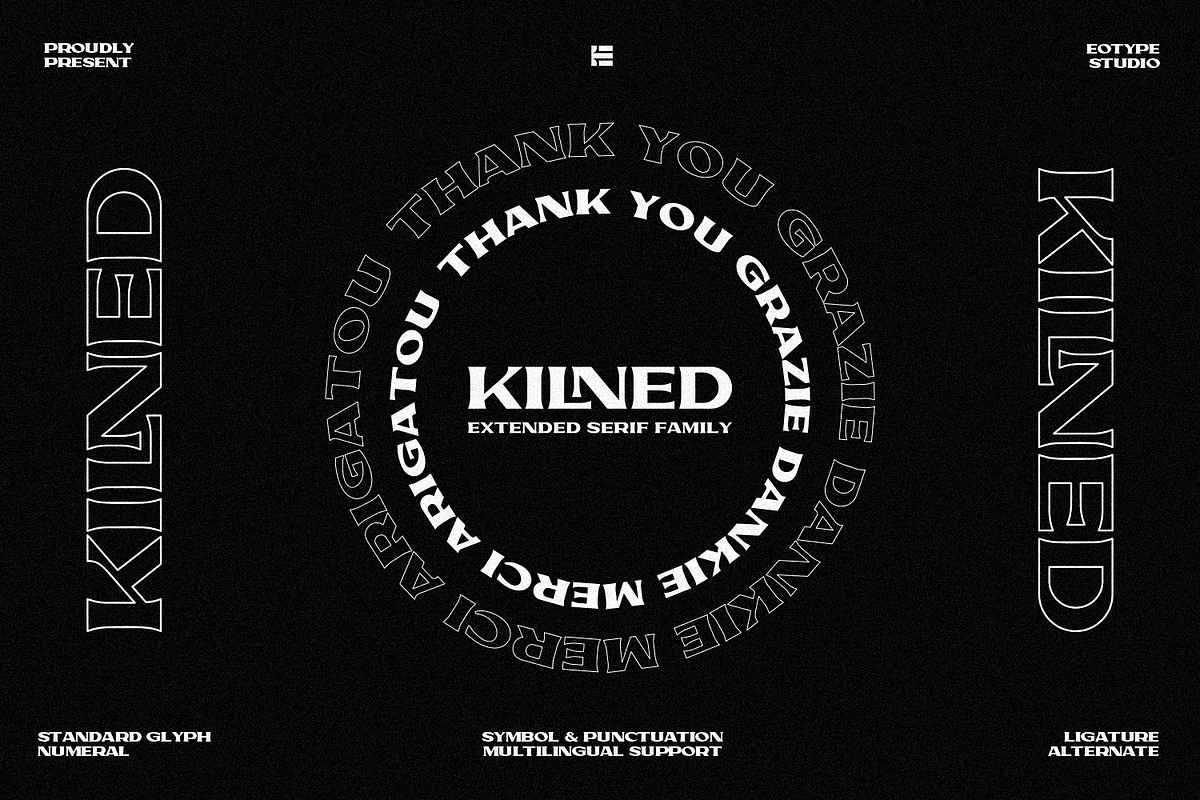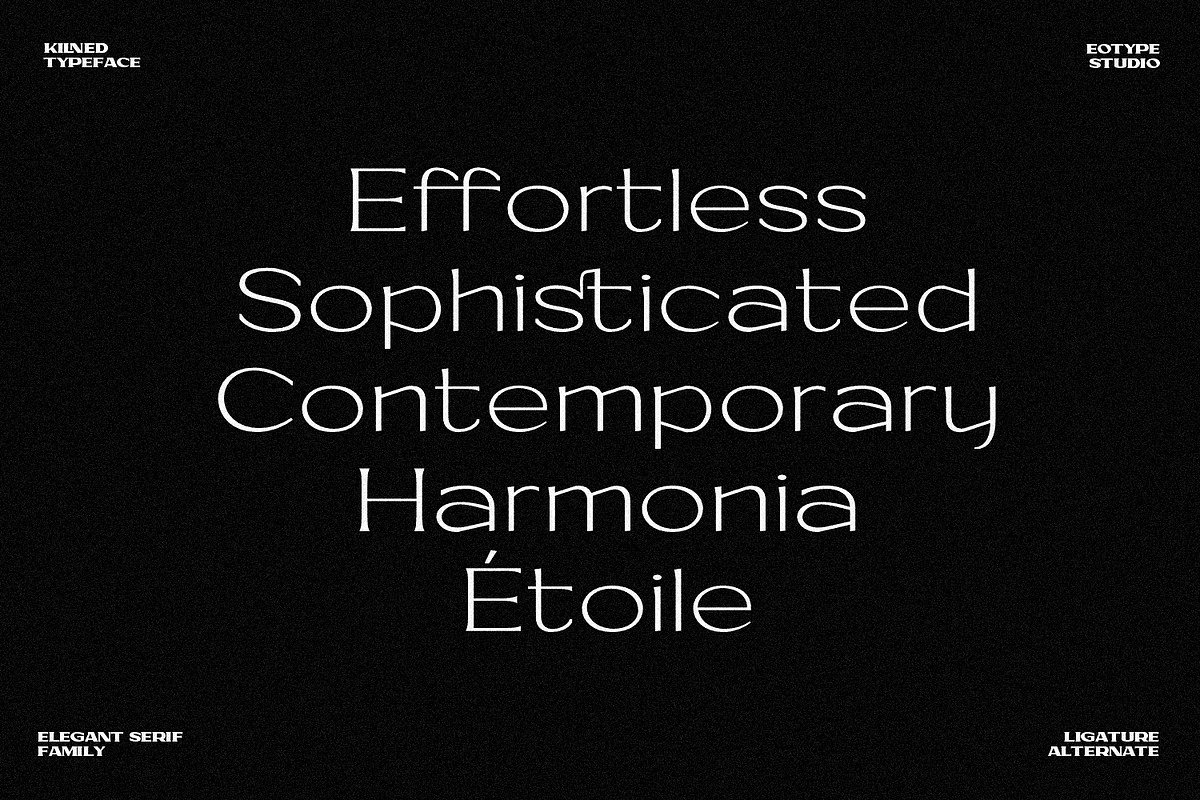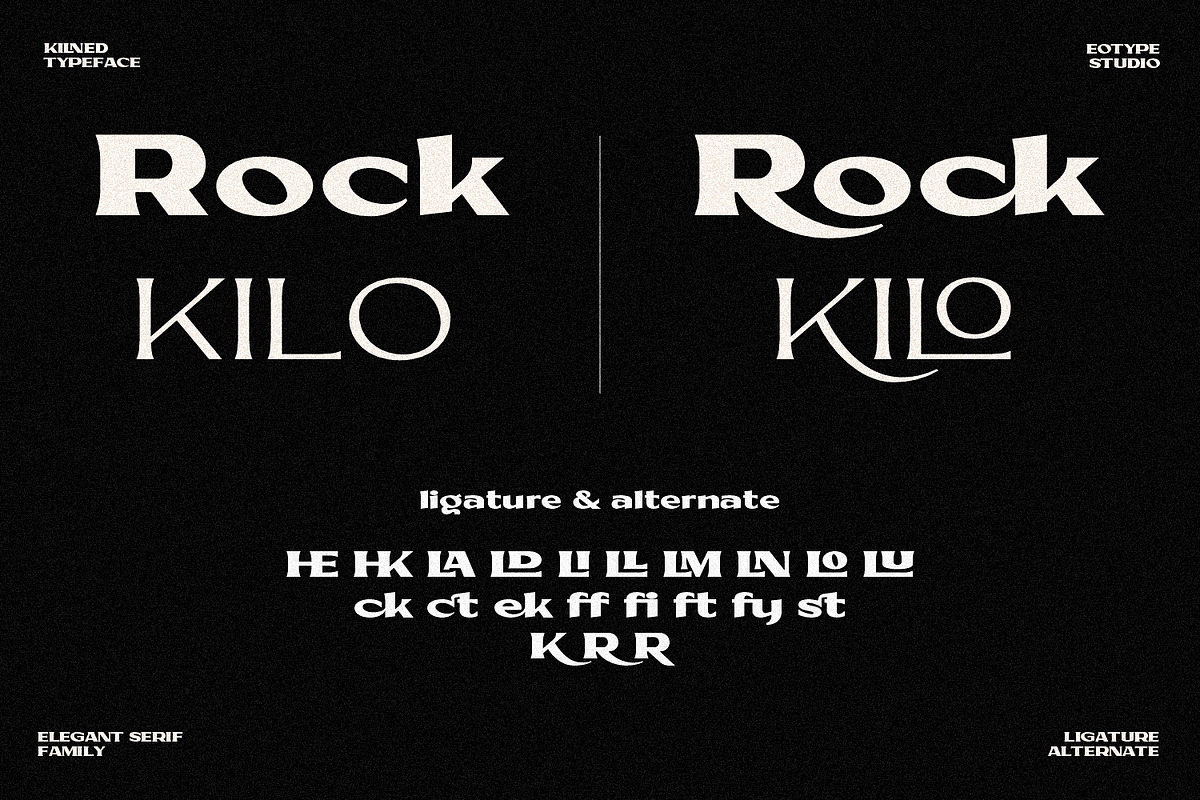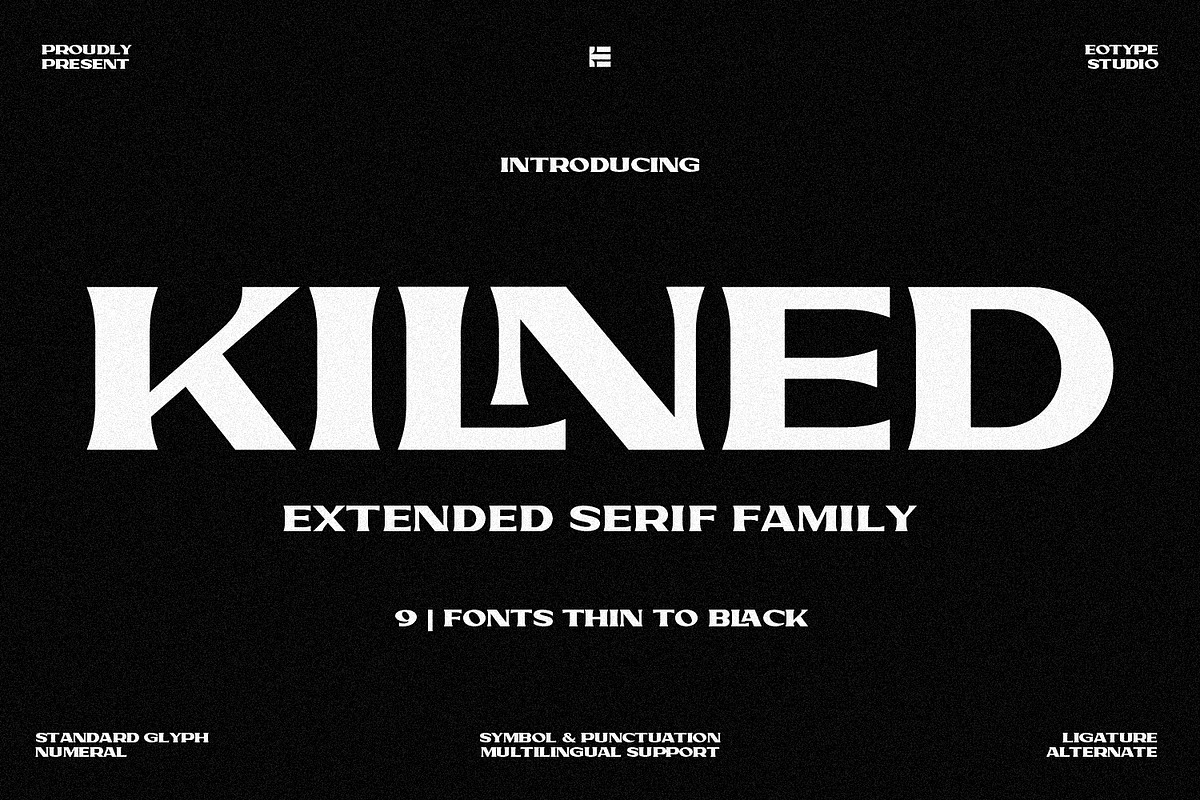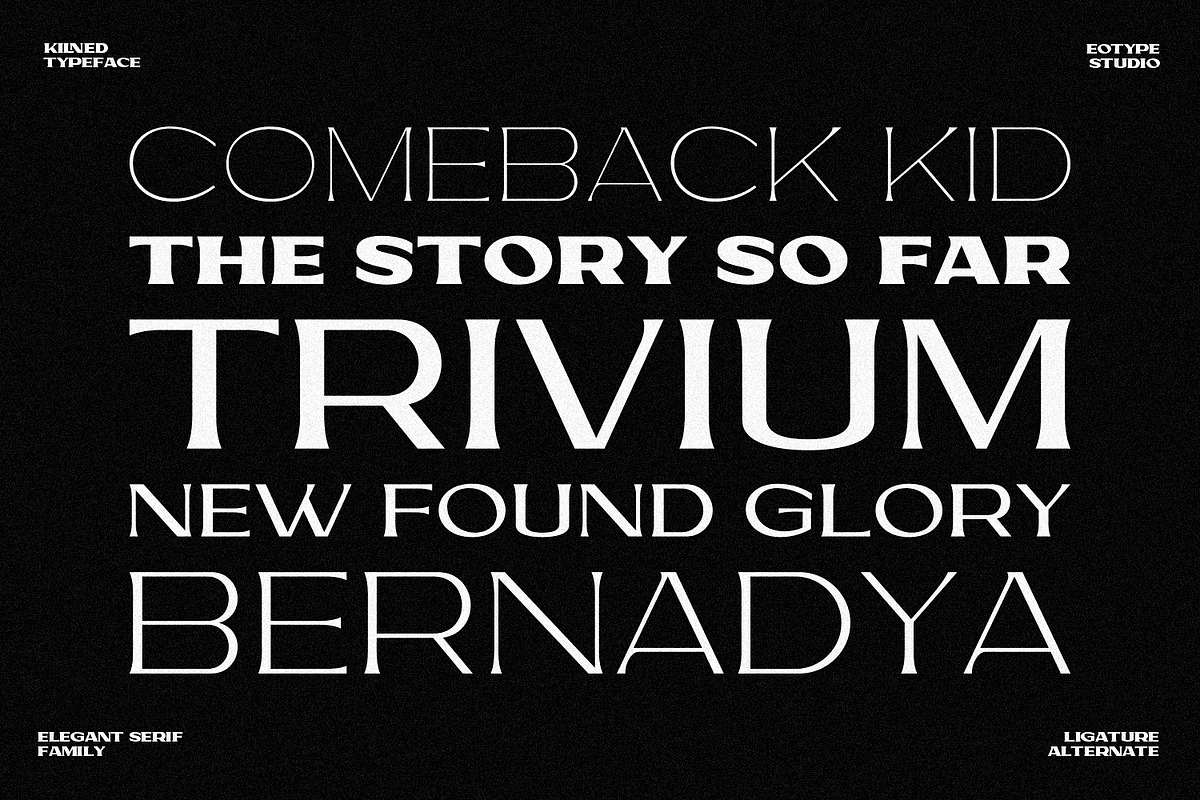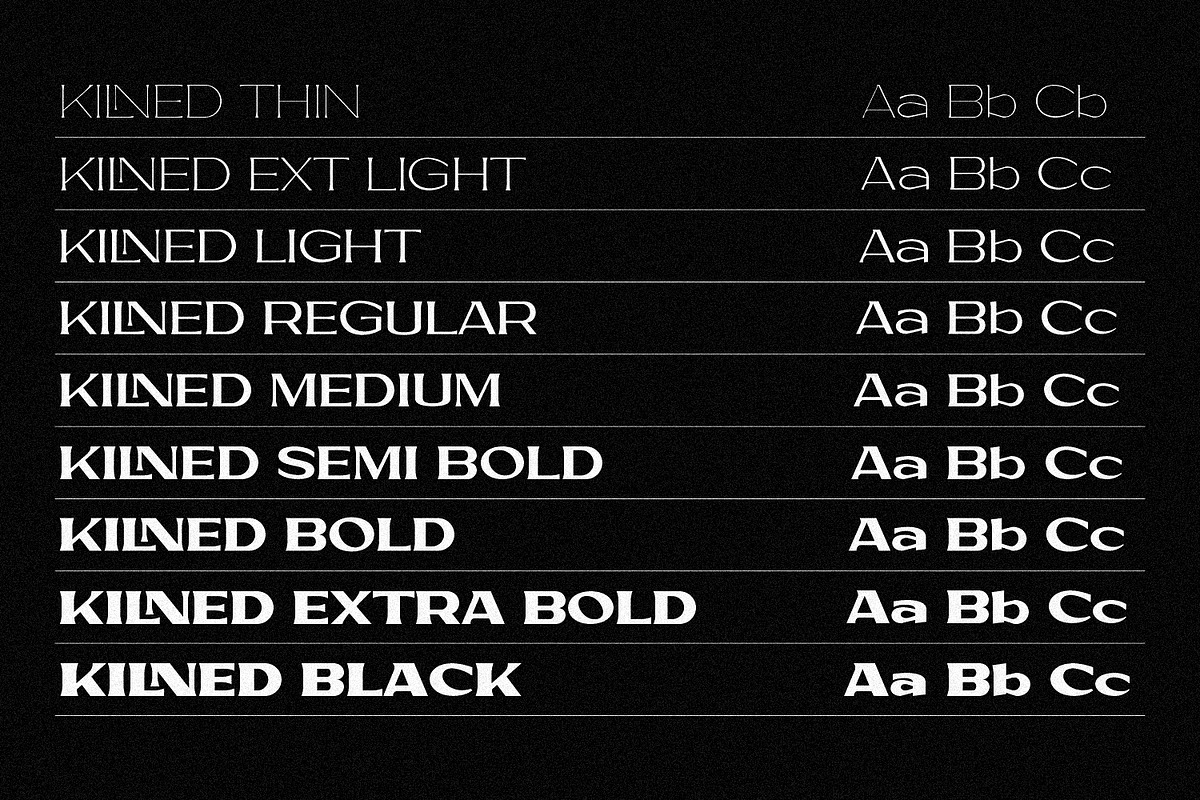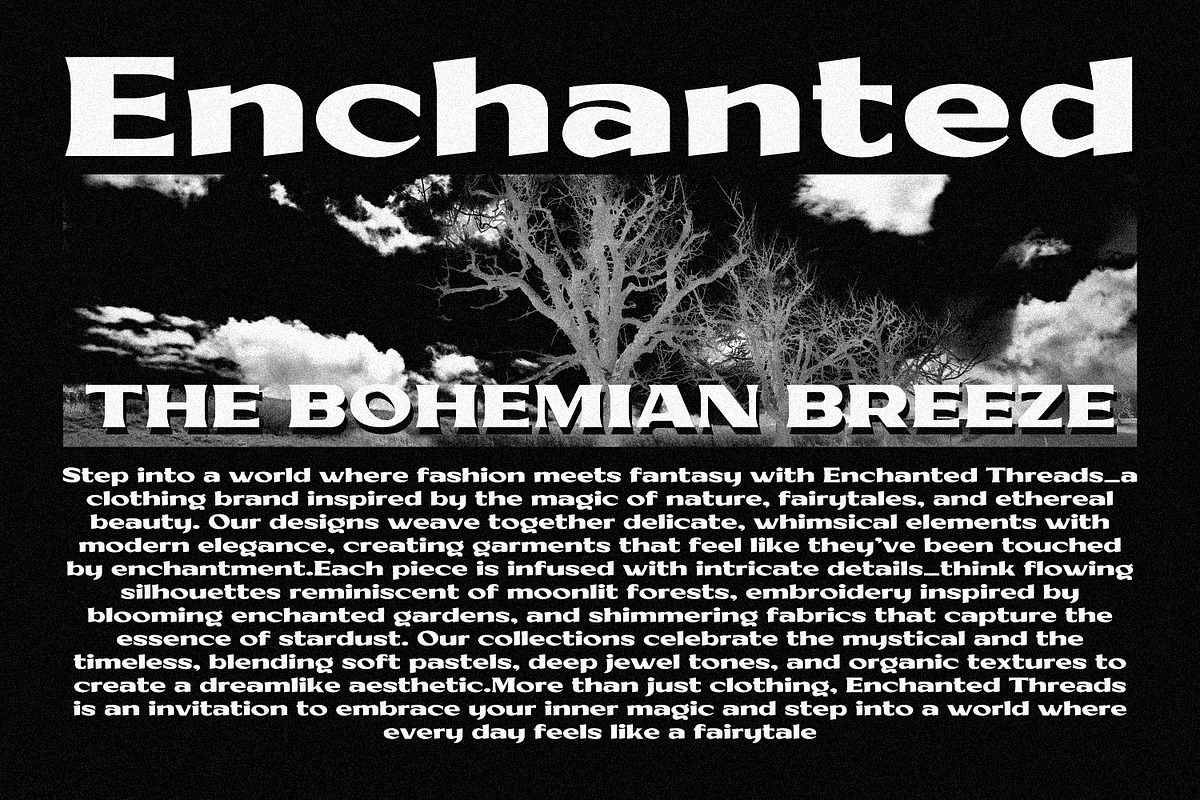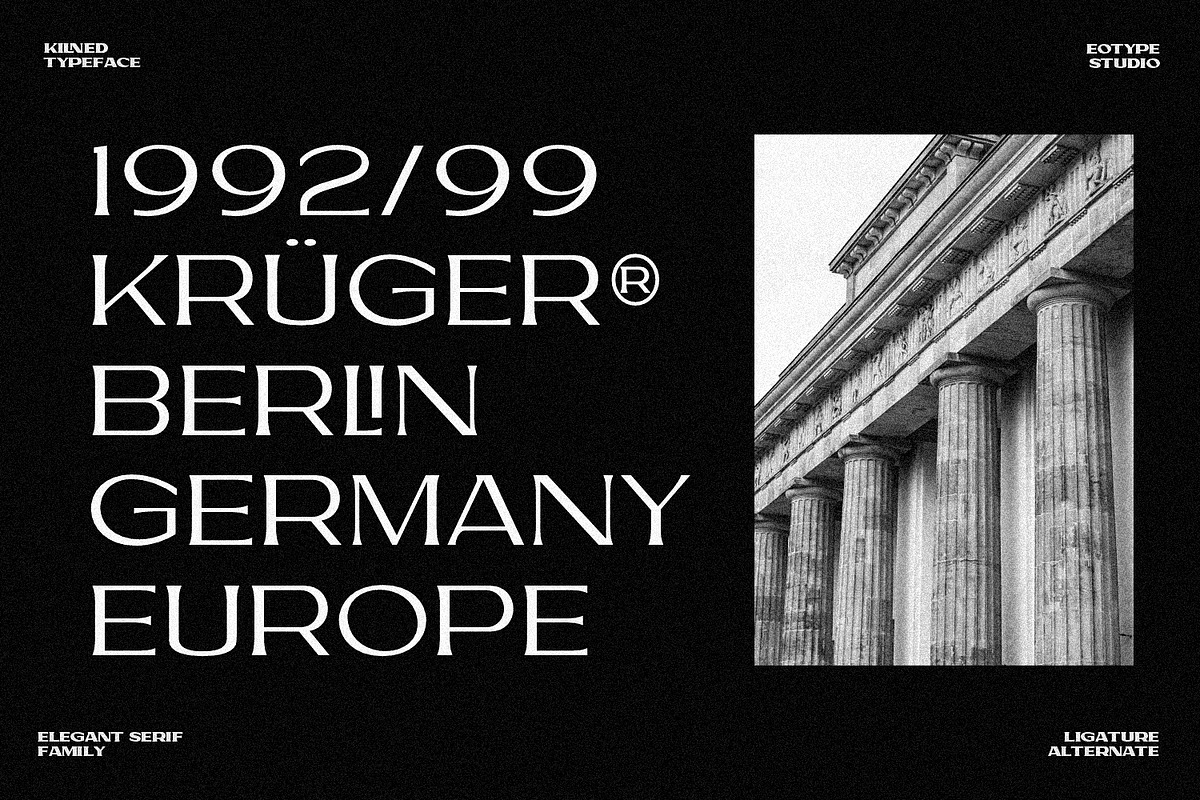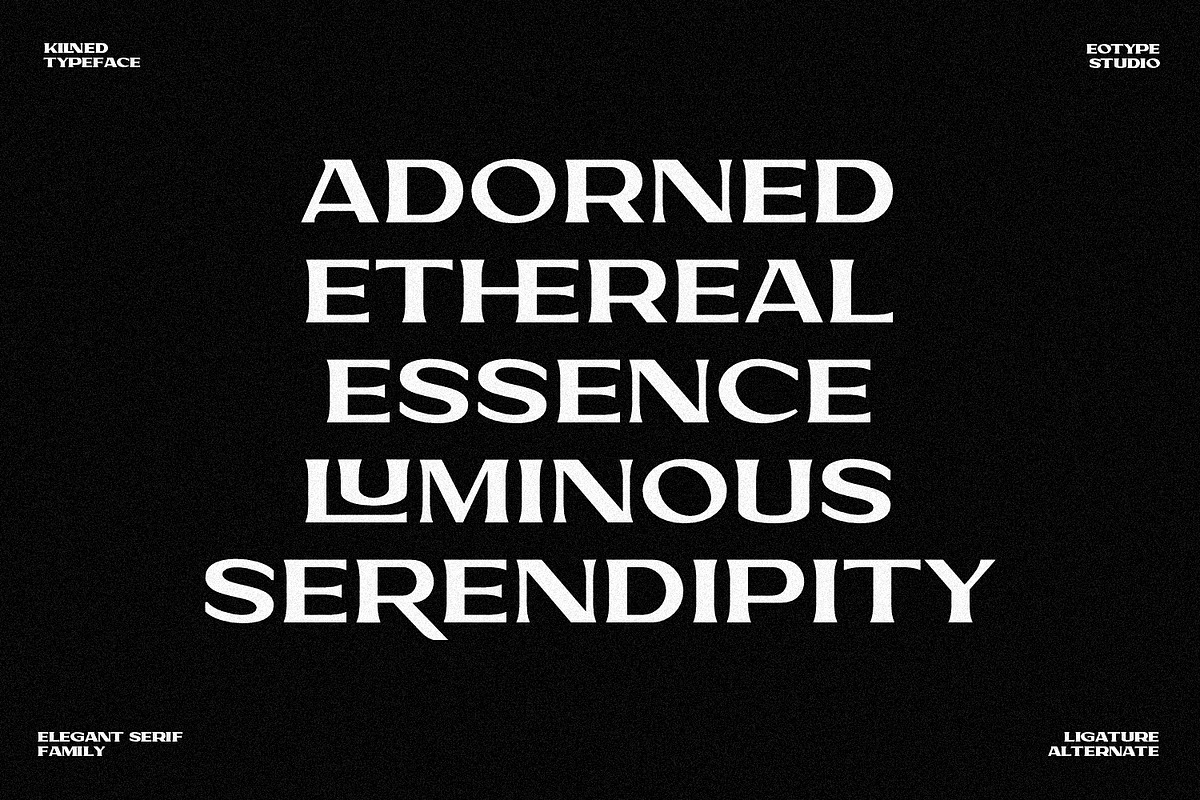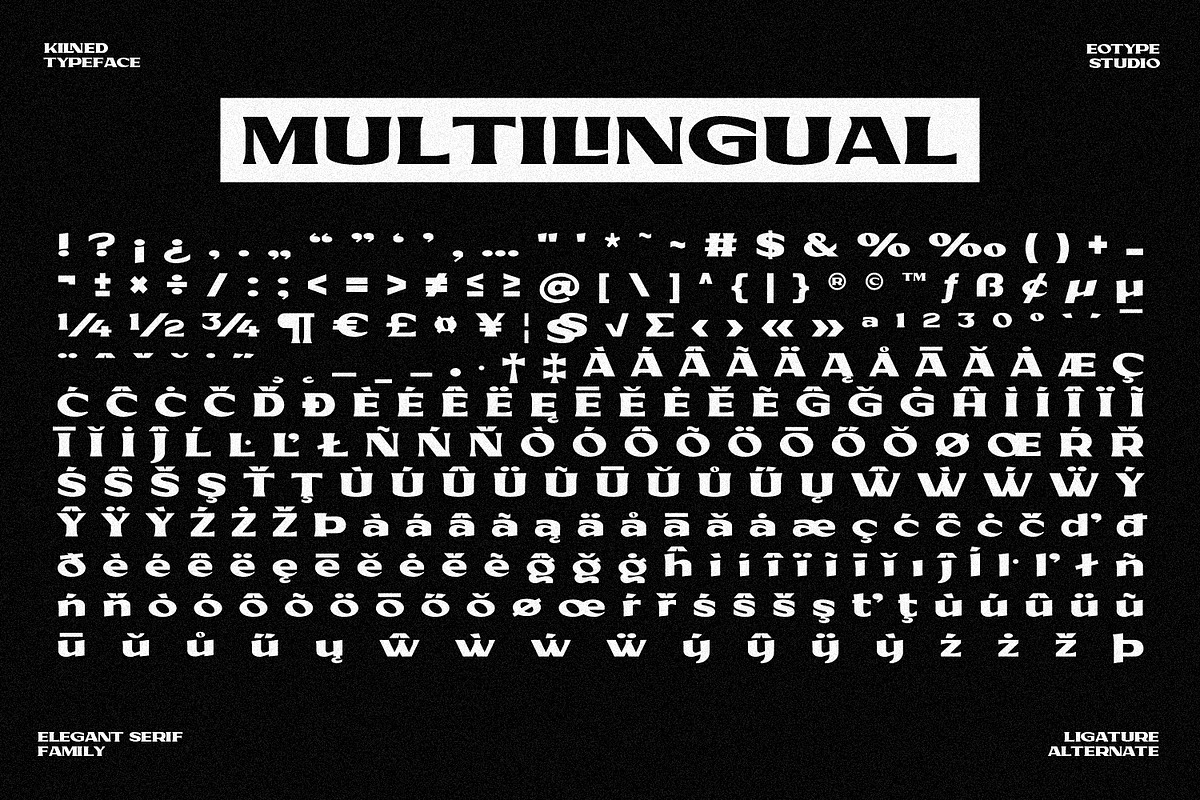
Kilned - Extended serif family
Kilned Serif font family a meticulously crafted collection of nine wide styles designed to infuse your creations with sophistication and charm. Perfect for brands, publications, and creatives seeking a timeless yet versatile typographic solution. Kilned Serif offers a harmonious blend of modern and classic aesthetics. The family includes 9 styles, each tailored to meet diverse design needs.